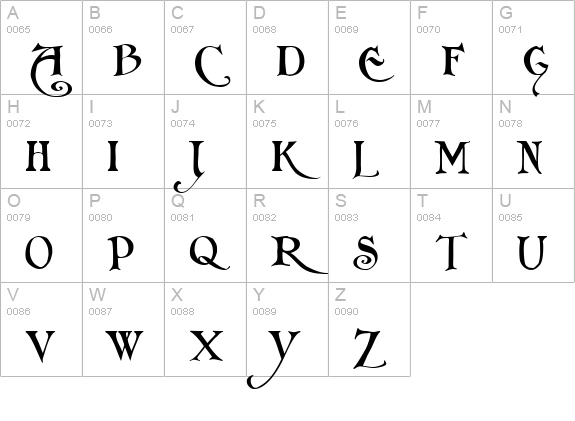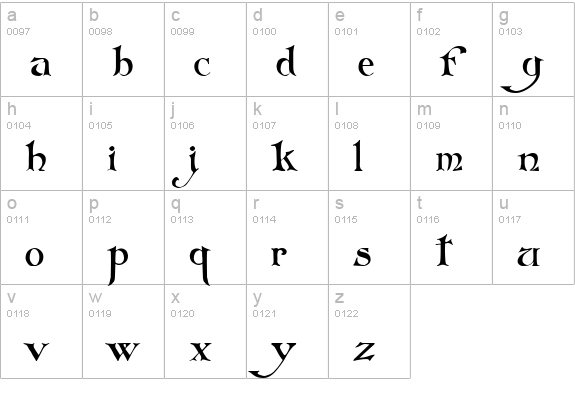
Folkardâ„¢ Font Details
Folkard™ font is a whimsical and charming typeface that exudes warmth and creativity. Its playful letterforms and unique design make it perfect for adding a touch of personality to any project. Whether you're working on a children's book, a greeting card, or a logo design, Folkard™ font is sure to make your text stand out. Best of all, Folkard™ font is available for free download at FontsMarket.com. This means you can easily access this delightful font and use it in your projects without any cost. Don't miss out on the opportunity to enhance your designs with the enchanting Folkard™ font today!